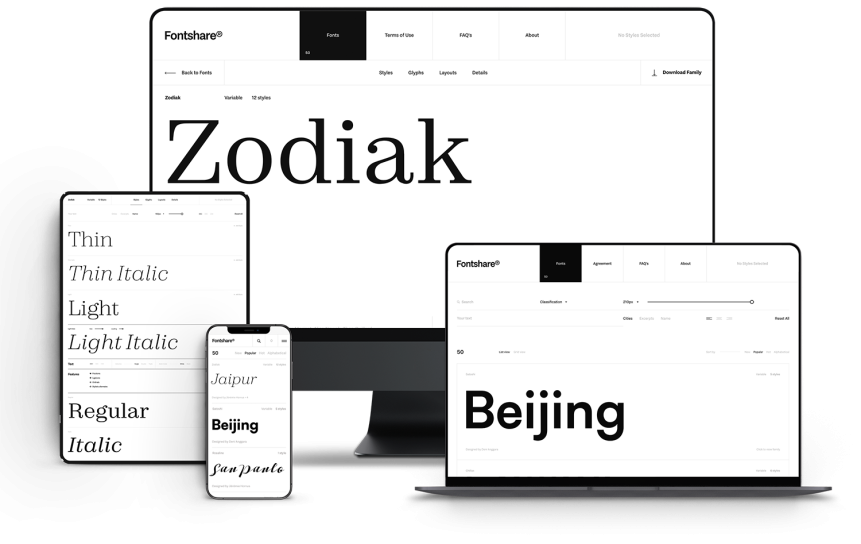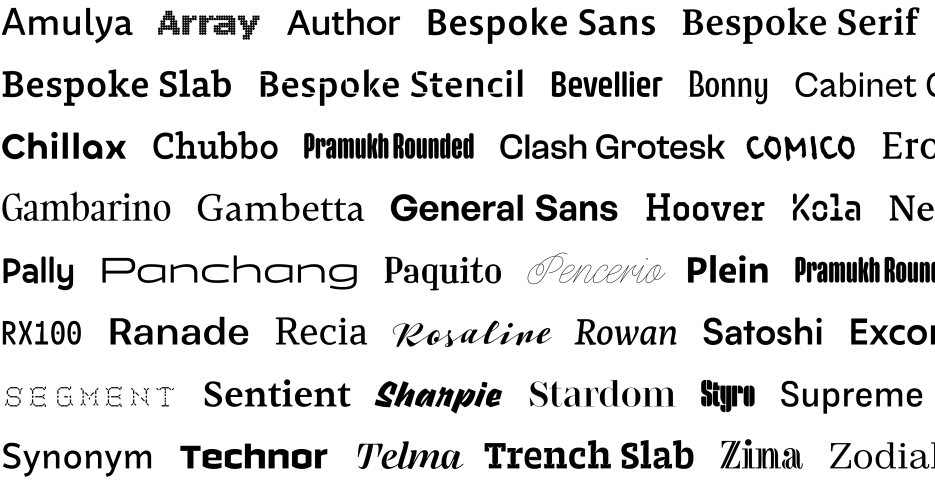
Fonts for free for good
For a number of years, ITF has been offering students, design institutions and other not-for-profit organisations all of its commercial fonts for free. Between 2014-2016, it released several open-source fonts, including the incredibly popular Poppins (which is used on millions of websites across the globe), Rajdhani, Khand, Hind and Teko, to name just a few. It has also invested a large proportion of its resources in developing fonts for languages that are rare or on the brink of extinction, even though this is not commercially profitable.
The launch of Fontshare is an extension of this ideology, with an aim to go even further and help brands and individuals who do not have the budget but still want to access beautiful typography. Licensing commercial fonts for use on a large scale can be really, really expensive. Sometimes even bigger brands simply cannot afford them. To put it in context, out of every ten enquiries we receive at ITF for a corporate licence, seven of them don't go through because of the budget constraints. These brands are, therefore, then left with no choice but to use a font that is freely available on the internet.
Raising the standard
Most of the free fonts that are available online are of poor quality and often have dubious origins. You can determine the quality of a typeface by examining the drawing of letters, spacing, kerning, OpenType features, character sets, language support, the availability of weights, italics and of newer font formats, such as variable fonts.
Indeed, a large proportion of free fonts are ripped-off versions of proprietary fonts and do not have enough information about the creator, so there is always the threat of legal action being taken by the original owner.
We always wanted to change this. Through many consequent years of hard work, we are now in a position to realise this vision and have decided to make 25% of our Latin fonts available to the public for free. We decided to launch a dedicated service, where we can curate fonts and continually improve their quality over time. From now on, every fourth Latin font family that we design at ITF will be shared on Fontshare for free. Although these fonts are not open-source and are still controlled by an ITF EULA, they’re 100% free for personal and commercial use. You can use them in any media, at any scale, and in any location worldwide. Using Fontshare fonts also means that you’re legally protected because no one else can claim ownership of these fonts.
50 free fonts and counting
We're launching this service with 50 font families and will continue to add more fonts as ITF's retail library grows. Users can either access these fonts using our Fontshare API or download an offline kit that contains both Web and Desktop fonts.